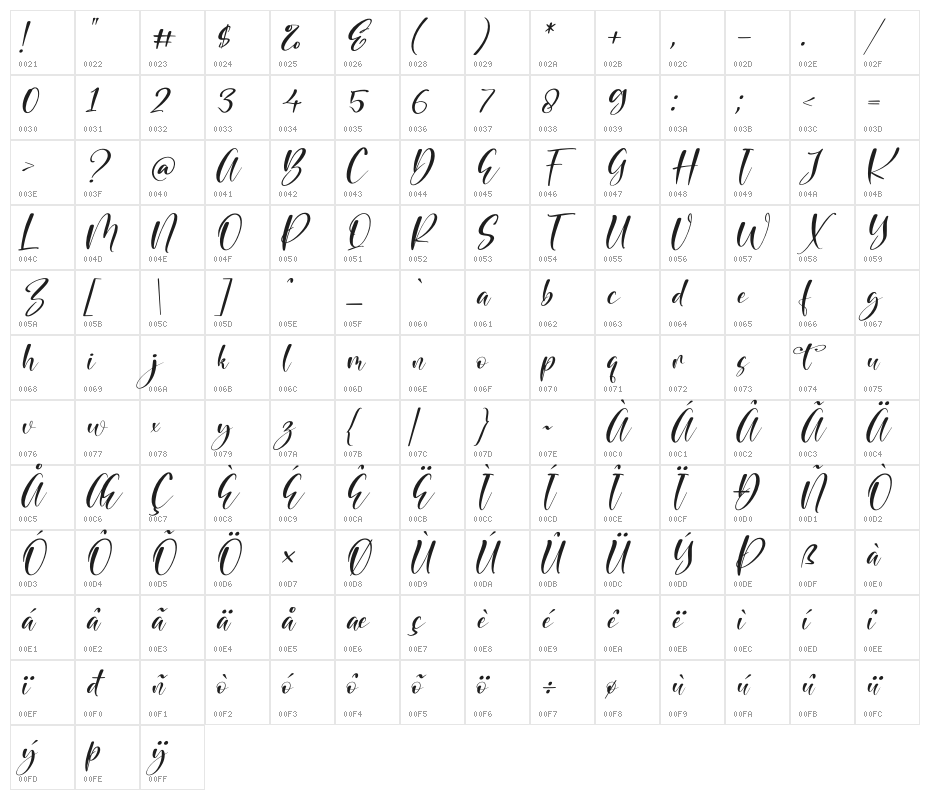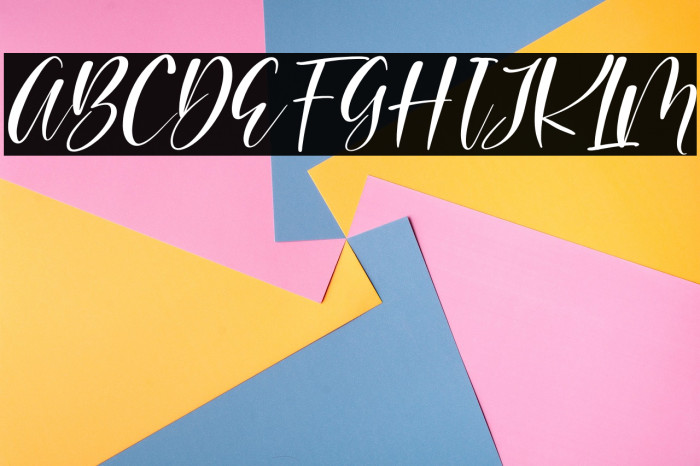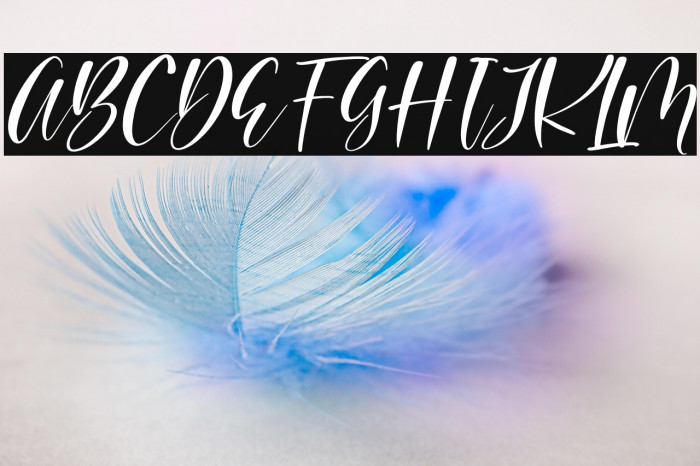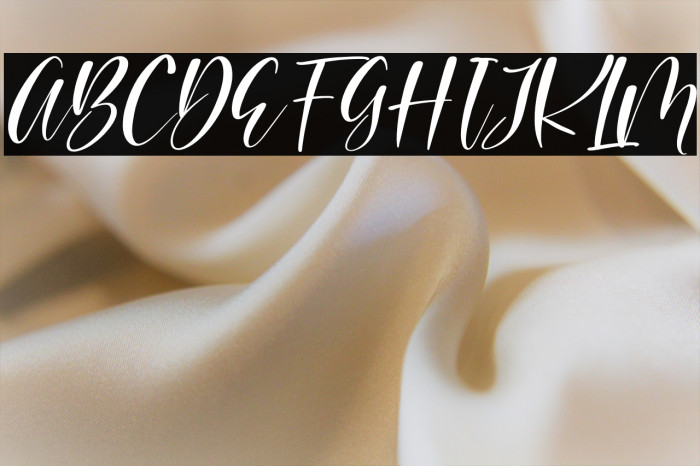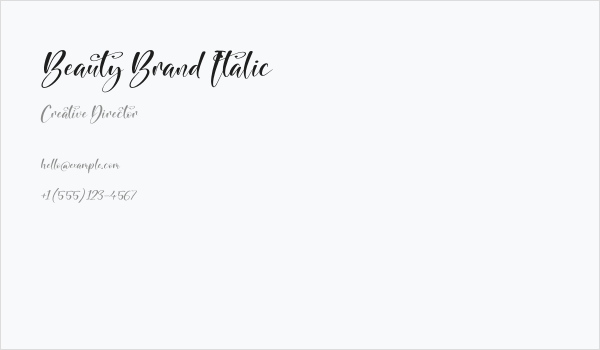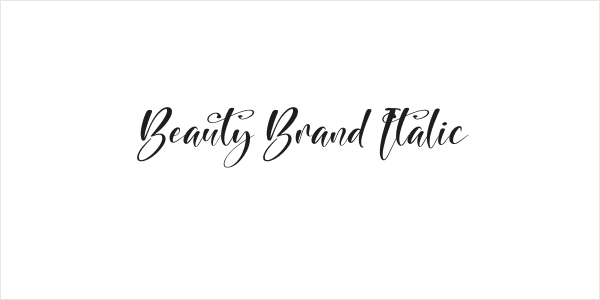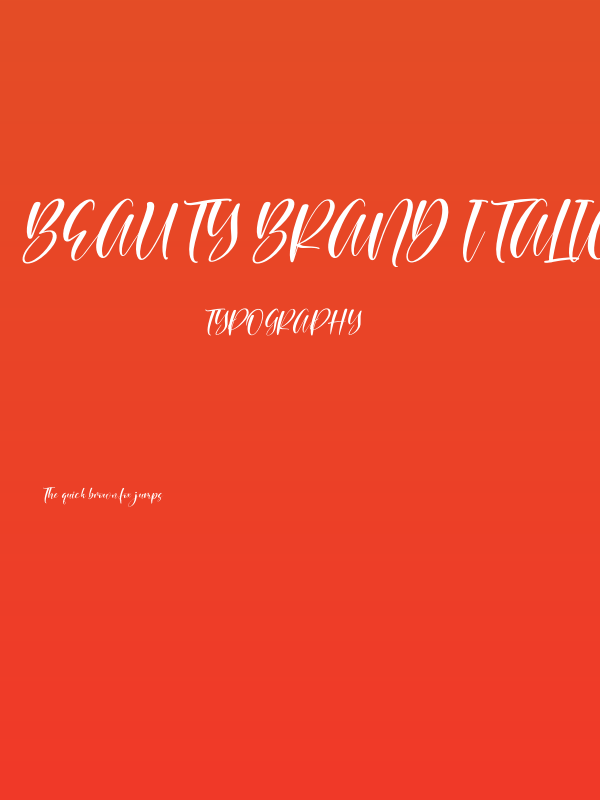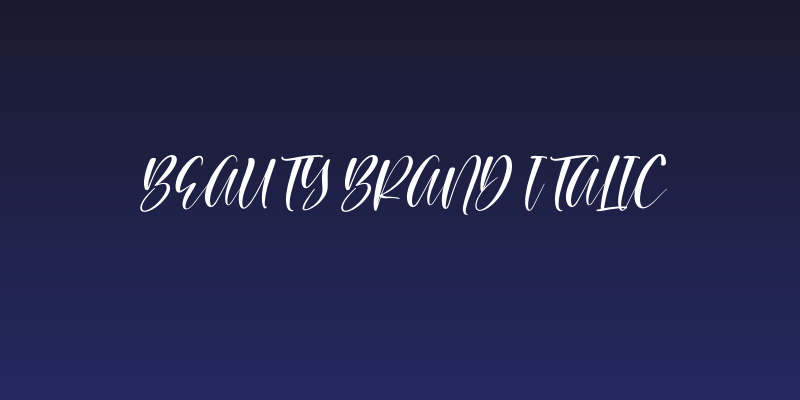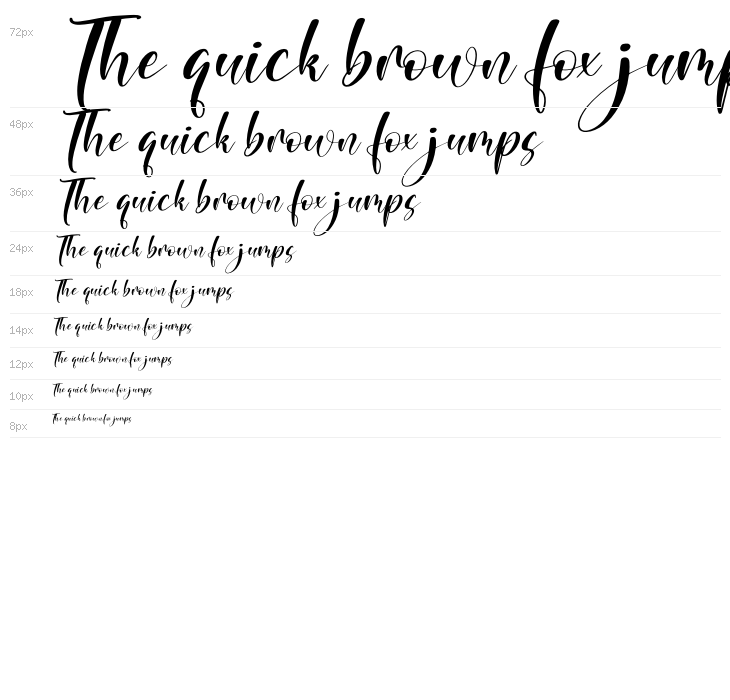
Beauty Brand Italic Font
Beauty Brand Italic Description
This font exudes elegance and sophistication with its flowing, cursive style. Each letter is crafted with a graceful, sweeping motion, creating a sense of fluidity and movement. The uppercase letters are bold and striking, while the lowercase letters maintain a delicate balance, offering a harmonious blend of strength and subtlety. The numbers and special characters are designed with the same attention to detail, ensuring consistency throughout. The italic slant adds a dynamic touch, making it perfect for projects that require a touch of class and refinement.
| Proposed Projects | Ideal for beauty branding, wedding invitations, luxury product packaging, and elegant logo designs. |